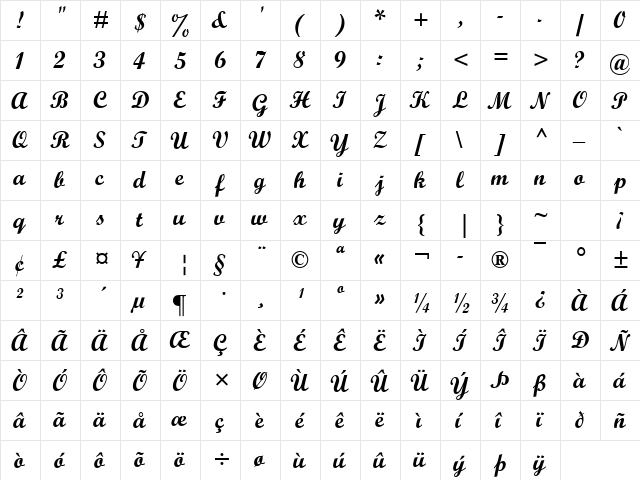
Formal Bold Font Preview
Formal Bold
Formal Bold Font Details
Design Context for Formal Typeface
Formal is a composed and adaptable typeface that performs quietly and consistently across a wide range of design contexts. The heavy weight commands attention and anchors typographic hierarchies.